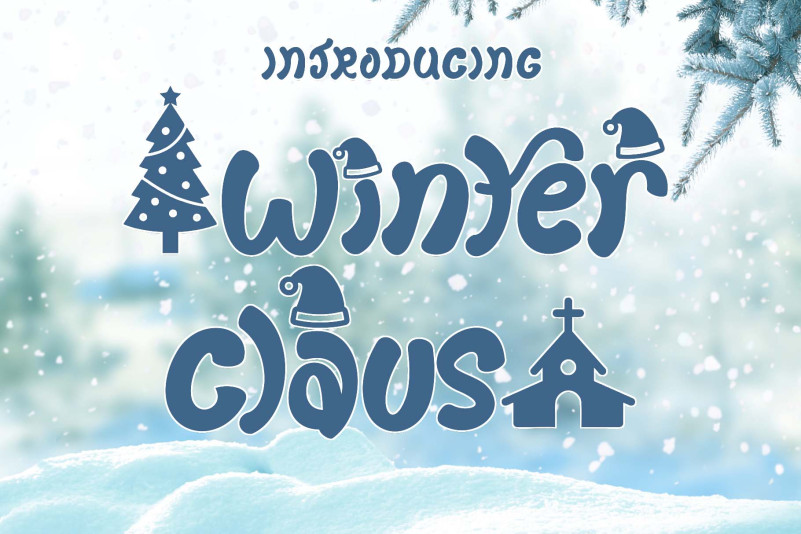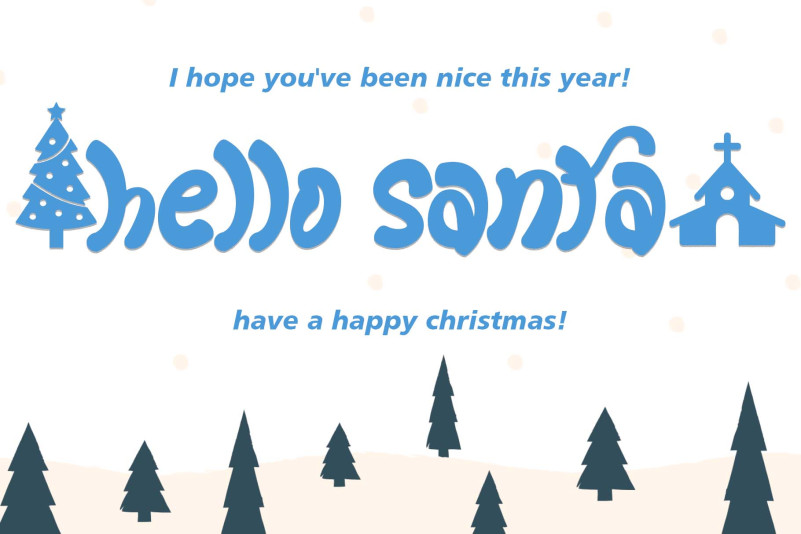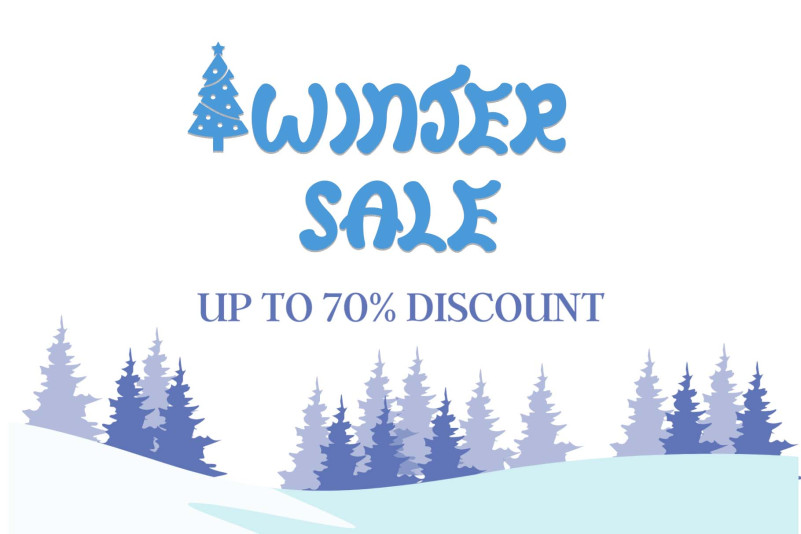
Winter Claus Font
Winter Claus Display Font is a unique display font decorated with Christmas hats, Christmas trees, and churches. This font is perfect for all your festive Christmas and winter projects. Winter Claus is PUA encoded which means you can access all the glyphs and alternates with ease!